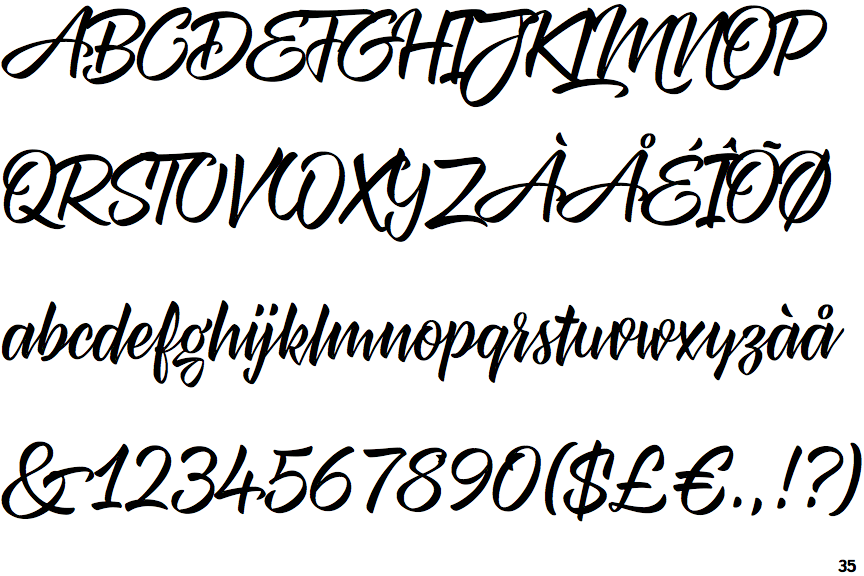
This lovely script font by lecter johnson is another, more soft and round one in the series of doubletwo studios' script fonts (xxii yeahscript, xxii awesomescript).
It has uppercase, lowercase, numerals, punctuation & multingual characters, also includes some opentype features like ligatures, stylistic alternate characters, & swashes.